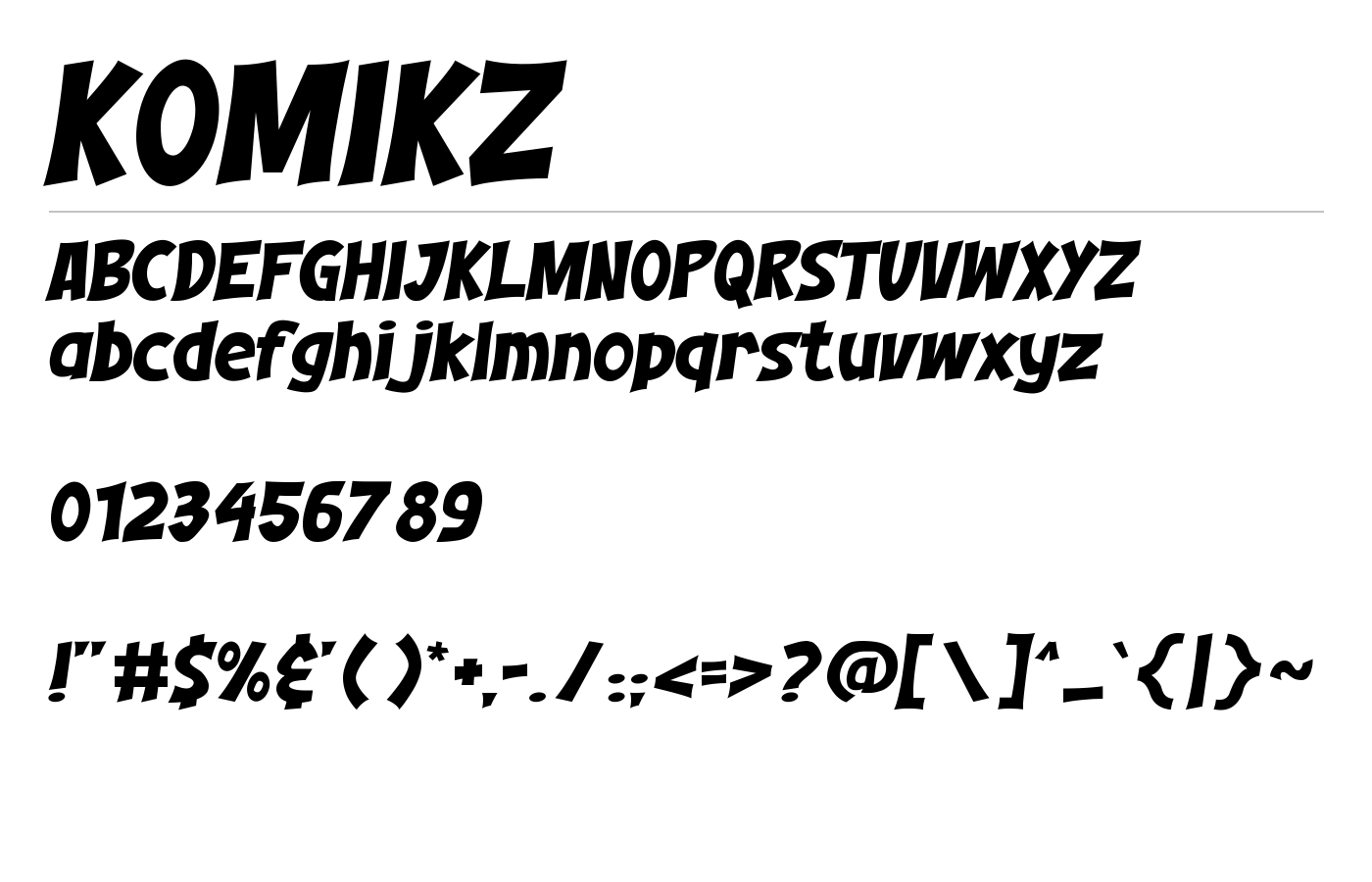
Komoz is a bold, playful sans serif font with a slightly condensed width and energetic character shapes that convey a fun, casual vibe. Its lively italics and quirky letterforms make it perfect for comic-style designs, headlines, posters, and branding that seeks to be approachable and dynamic. This font shines in creative, informal contexts where personality and impact are key.
Komoz Font
About Komoz Font